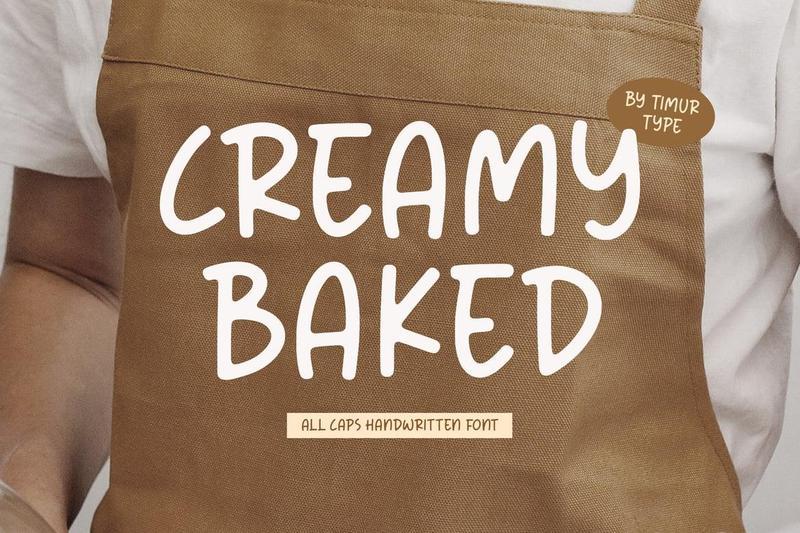
Creamy Baked A All Caps Handwritten Font, which was created with great care and specially created for you.
Creamy Baked is perfect for product packaging, branding project, megazine, social media, wedding, or just used to express words above the background.